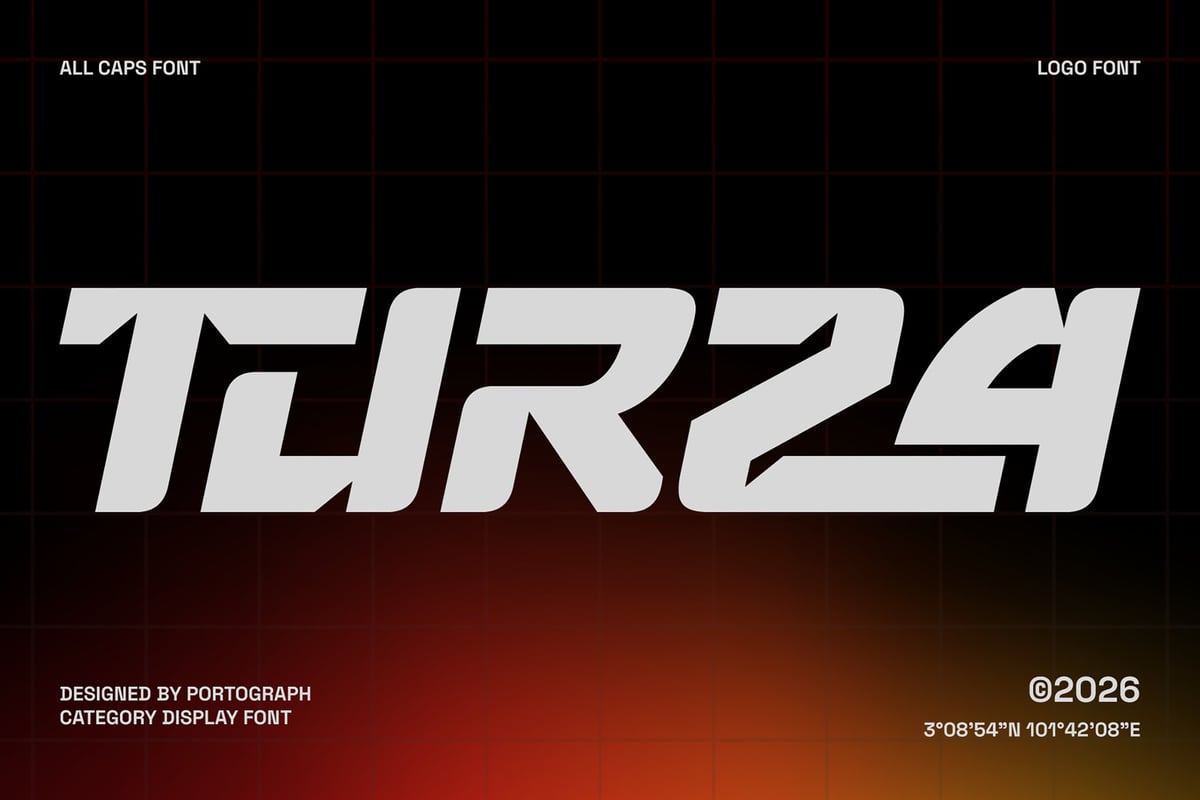
Turza - Sports Font
Accelerate your designs with Turza - a bold racing display font engineered for speed, power, and competitive excellence. This dynamic typeface features sharp angles, aerodynamic letterforms, and an aggressive slant that captures the raw energy of motorsport and high-performance branding. Every character is crafted to deliver maximum visual impact across racing teams, automotive brands, and competitive gaming environments. In Package: OTF TTF WOFF WOFF2 Features: Uppercase (All Caps) Ligatures Al...